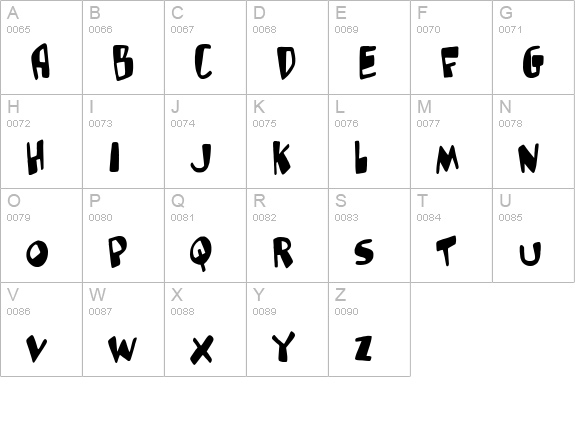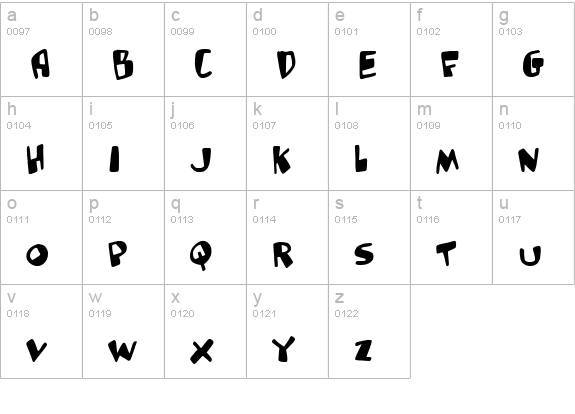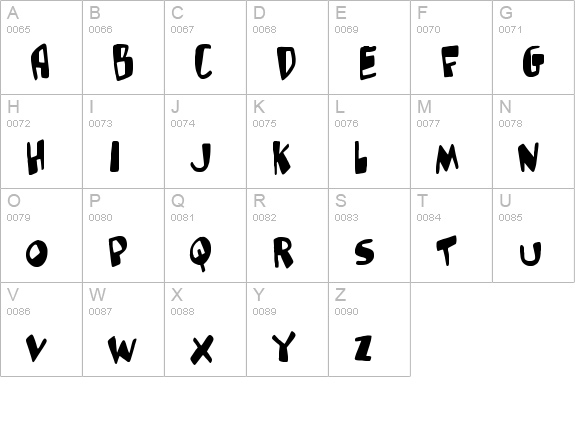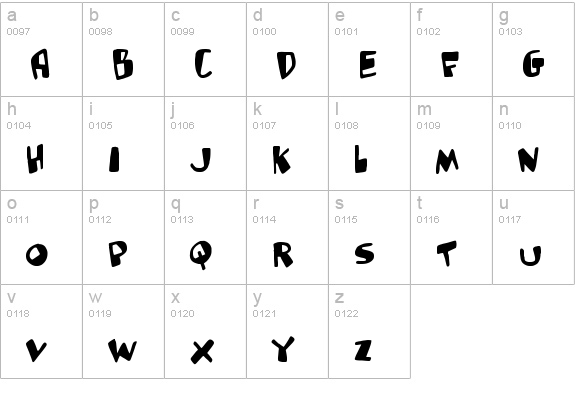
Glutton Man font is a whimsical and playful typeface that exudes a sense of fun and eccentricity. Its bold, rounded letterforms give off a friendly and inviting vibe, making it perfect for a variety of design projects. Whether you're working on a poster, logo, or social media graphic, Glutton Man font is sure to make your text pop and stand out. What's even better is that Glutton Man font is available for free download at FontsMarket.com. Yes, you heard that right - this quirky and eye-catching font can be yours at no cost at all. So why wait? Head over to FontsMarket.com and add Glutton Man font to your collection today!